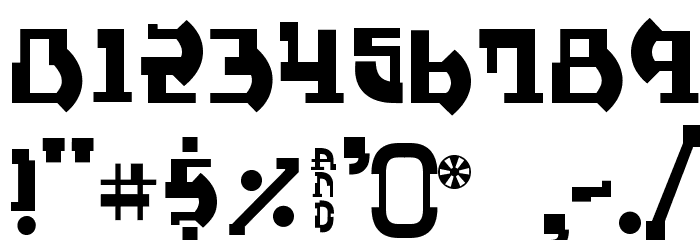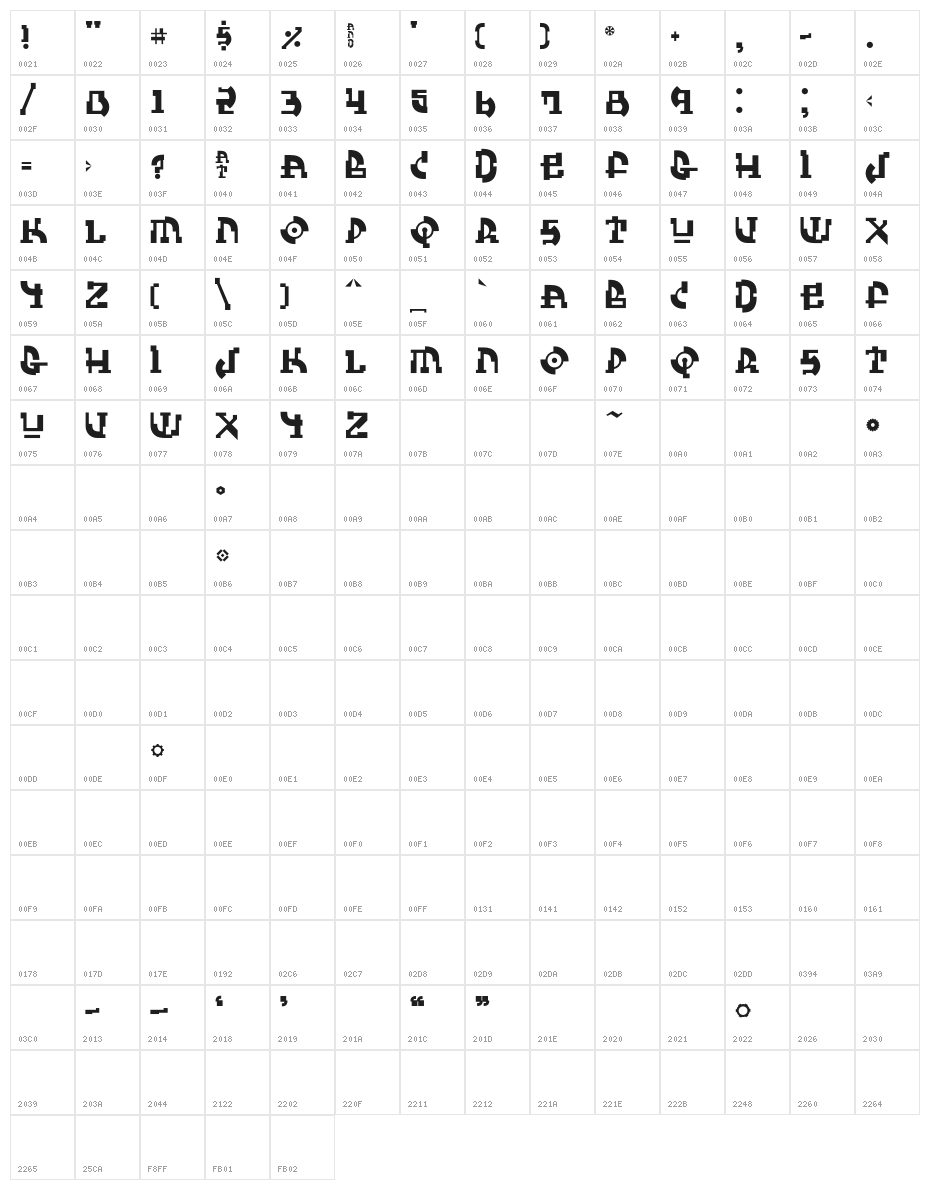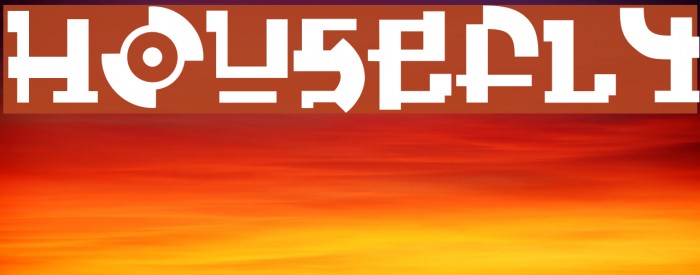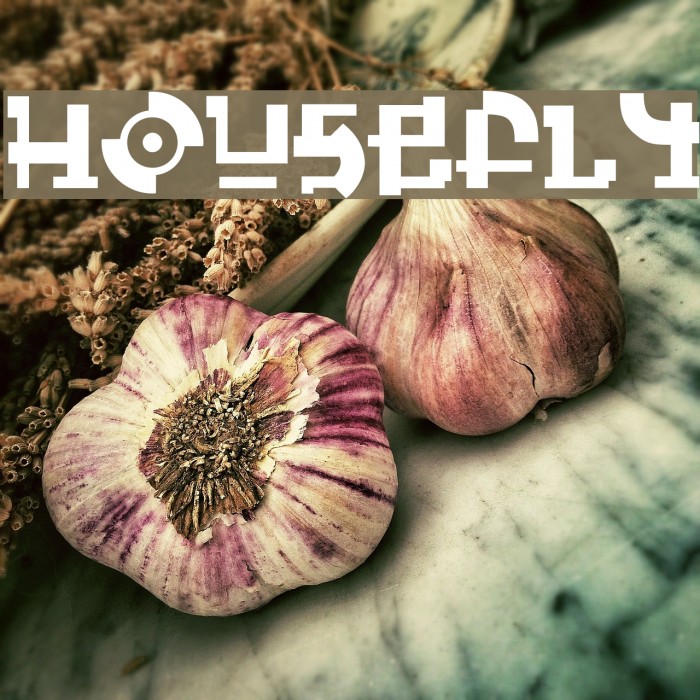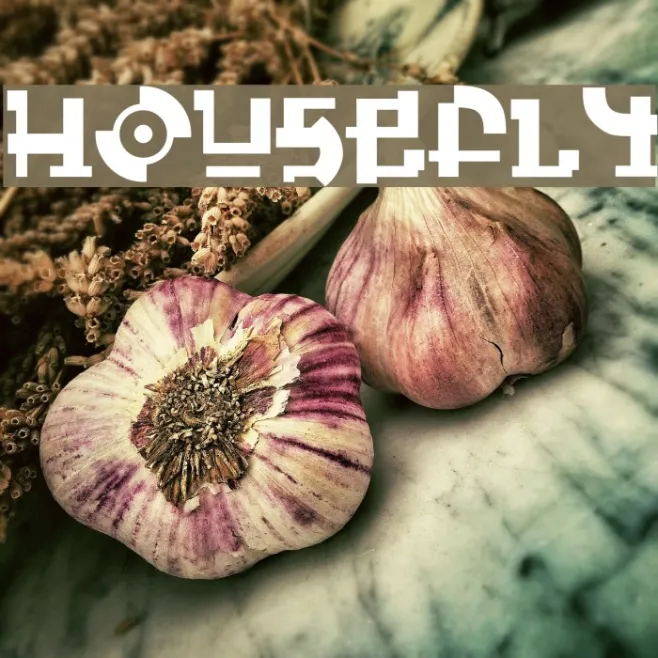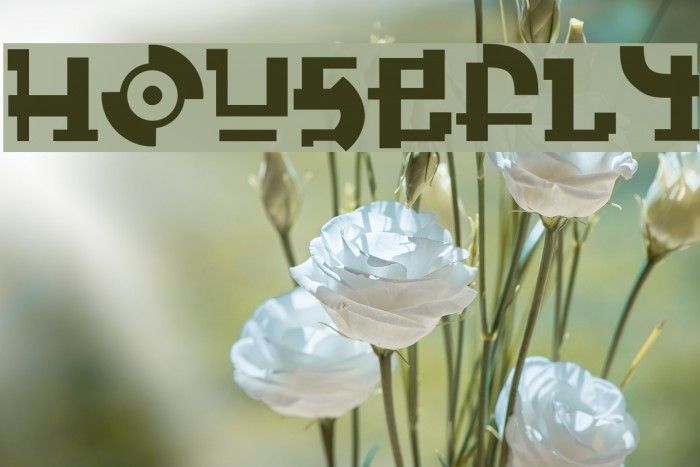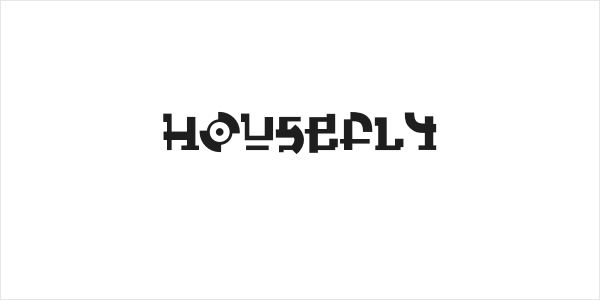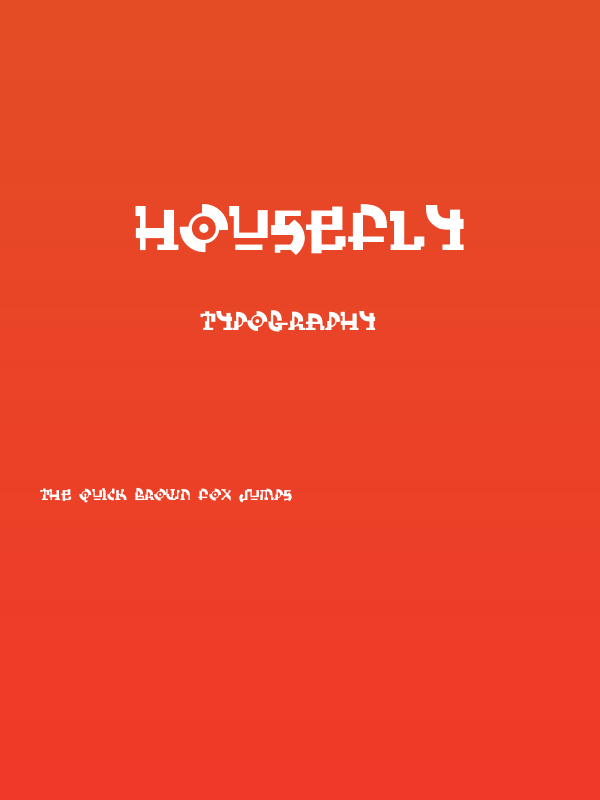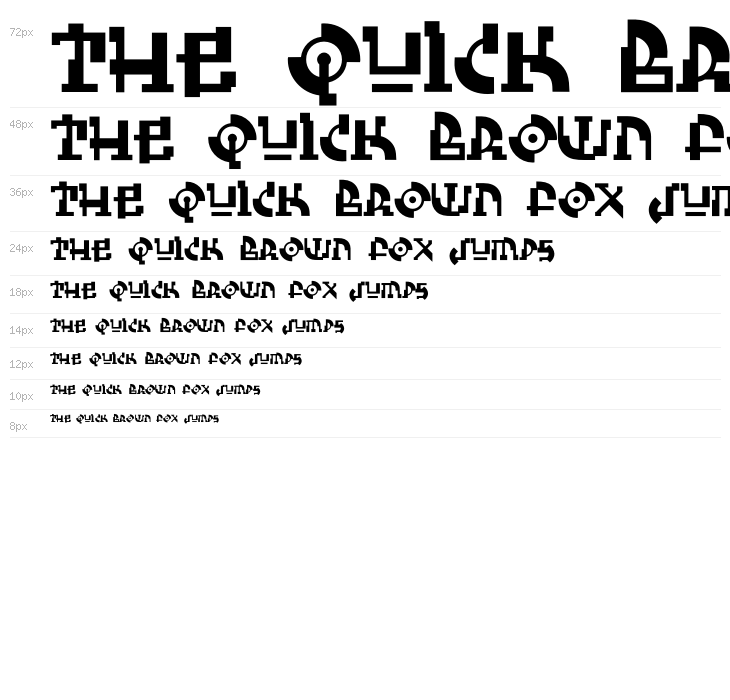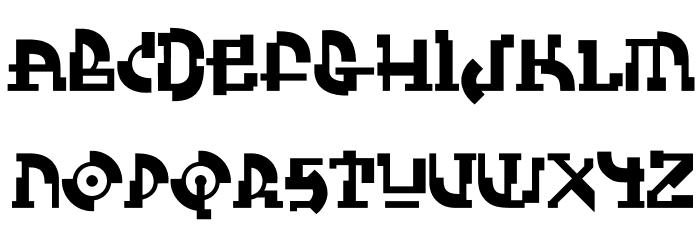
HouseFly Font
HouseFly Description
This font features a bold and striking design with a unique geometric structure. Each character is crafted with a combination of sharp angles and smooth curves, creating a futuristic and industrial feel. The uppercase and lowercase letters maintain a consistent style, with distinctive cutouts and bold lines that give the font a strong visual impact. The numbers and special characters follow the same design principles, ensuring a cohesive look across all elements. This font's boldness and unique style make it ideal for projects that require a modern and edgy aesthetic.
| Proposed Projects | Ideal for branding, posters, album covers, and any project needing a modern, edgy look. |